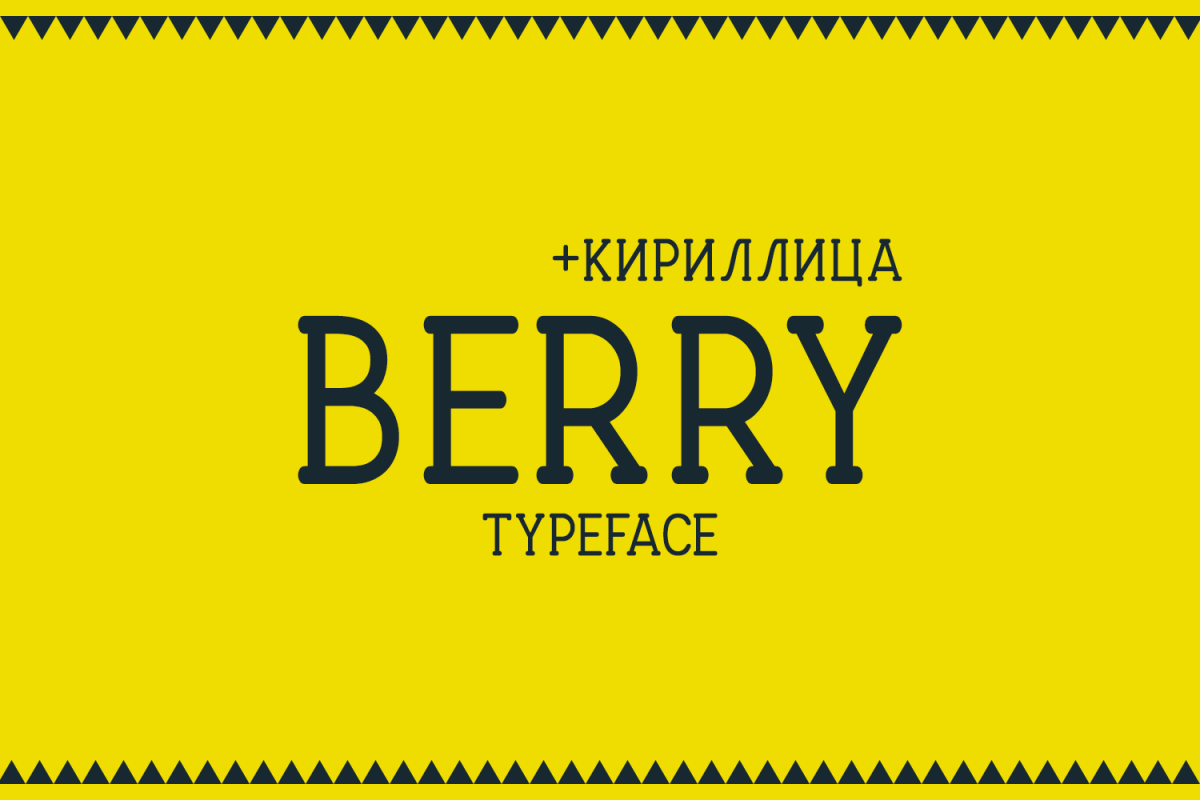
Berry Typeface
A little rounded, multilangual, regular sans-serif typeface. Brilliant choice for vintage logos, branding, arts, posters, also can be used in the articles or some text.
Support spanish, portuguese, german, danish, french, canadian french, italian, western and central european languages and cyrillic.